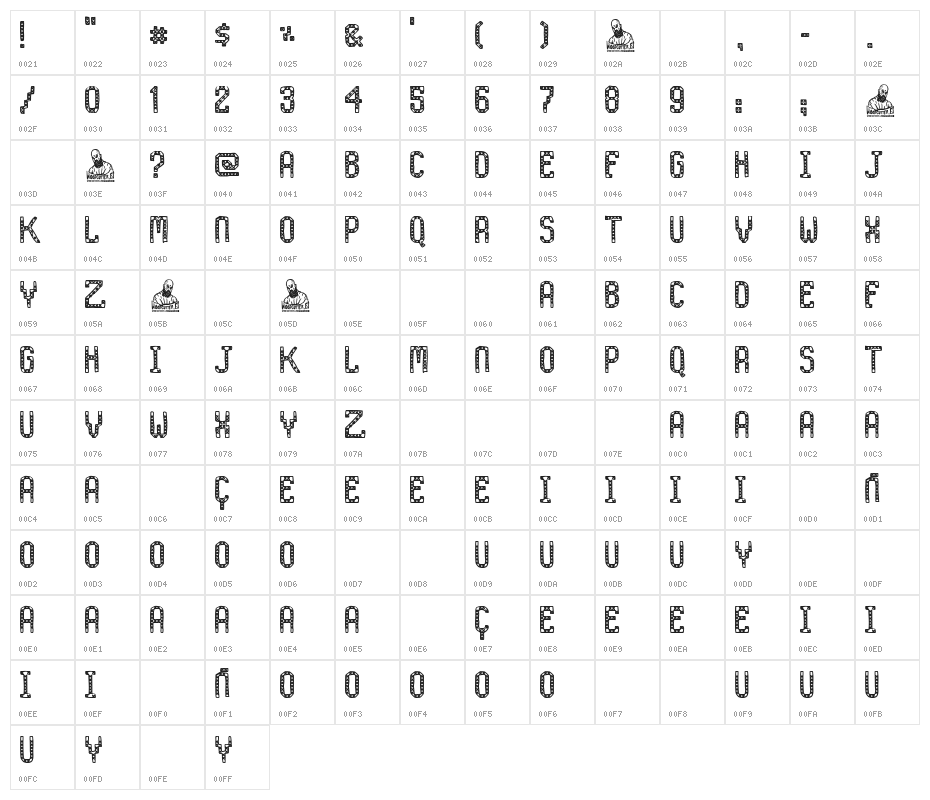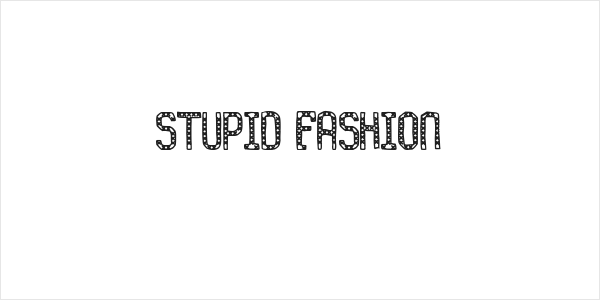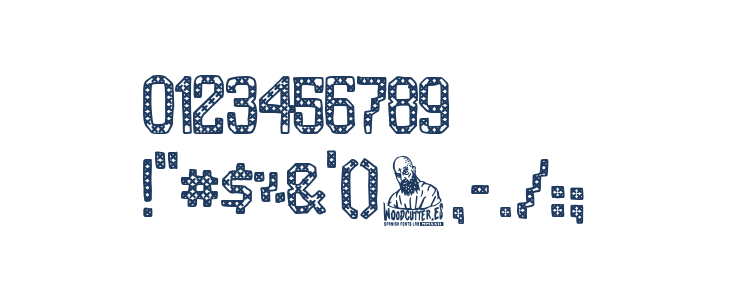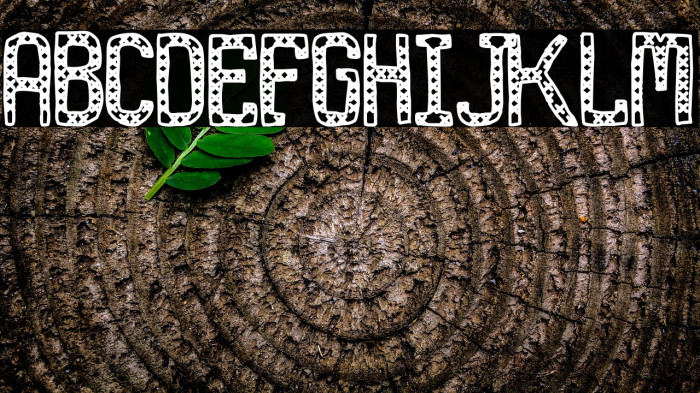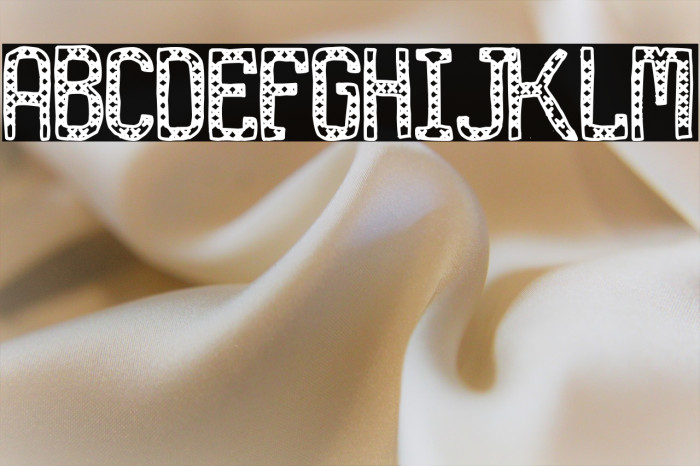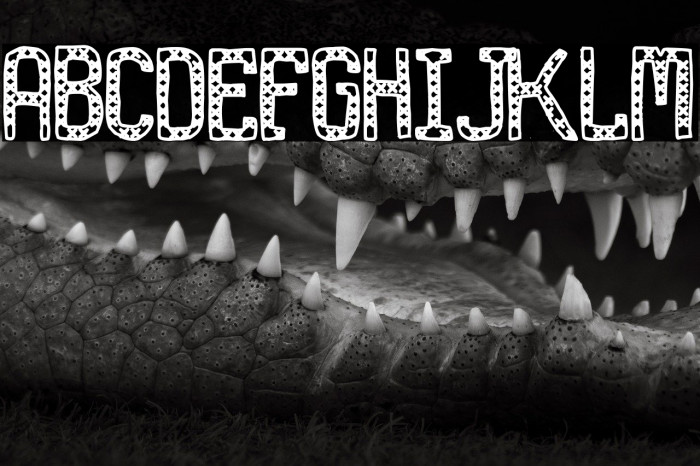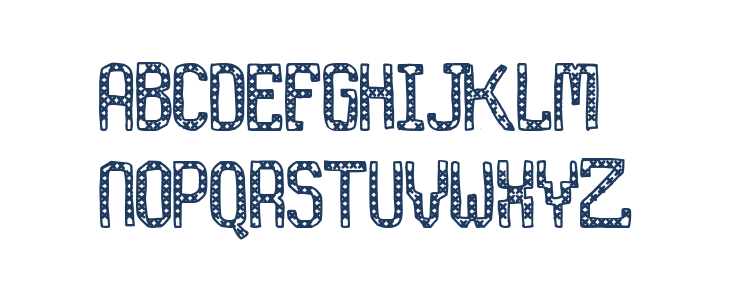
Stupid Fashion Font
Stupid Fashion Description
This playful and decorative font features a bold, outlined style filled with star patterns, creating a whimsical and eye-catching appearance. The characters are uppercase and lowercase letters, numbers, and a variety of special symbols. Each letter is uniquely designed with a consistent star motif, making it ideal for projects that require a fun and engaging aesthetic. The font's boldness and decorative elements make it stand out, perfect for creative designs.
| Overall Style | Playful, Whimsical, Decorative |
| Use Case | Headlines, Posters, Creative Designs |
| Proposed Projects | Ideal for children's book covers, party invitations, playful branding, and creative posters. |